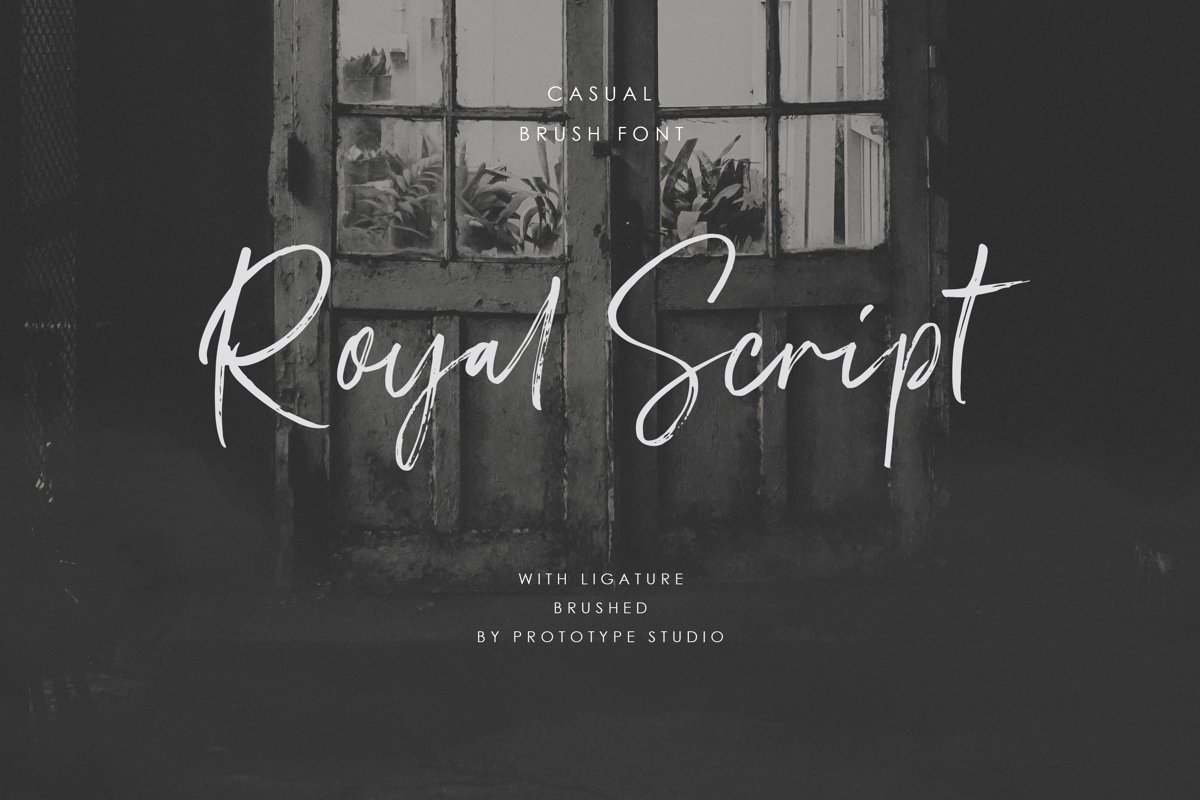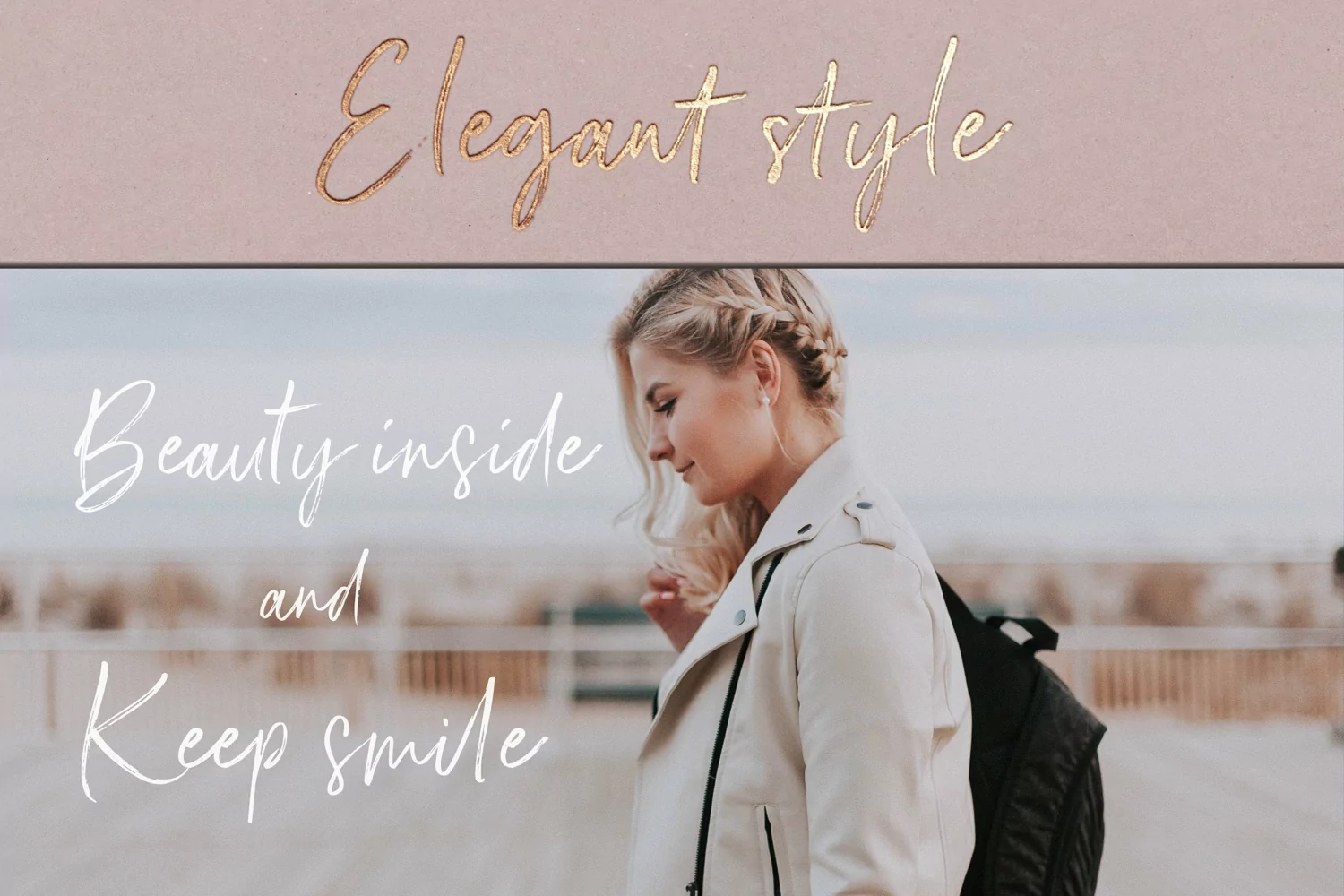
Royal Script is a beautiful new font featuring a marker textured! Create gorgeous invitations, quotes, mood boards, and more with a delicate, realistic marker script. A perfectly paired font duet of free flowing brush script and a sophisticated sans-serif. Take the stress out of finding fonts that match together with a set that already does and focus on what you want to do which is designing beauty work.
- Upper + Lowercase Letters w/ alternates
- Non-English support
- 26+ Ligatures